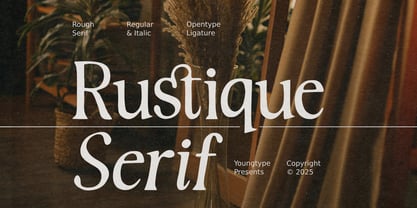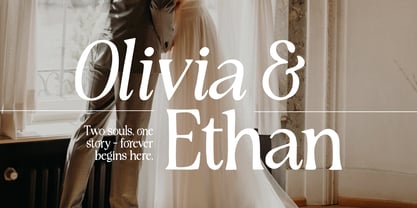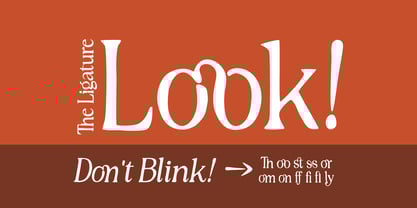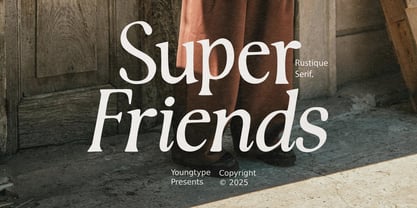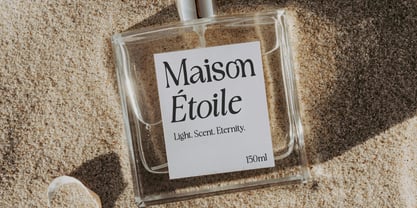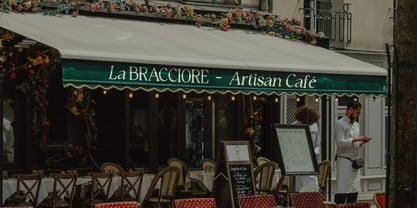
Rustique Serif
by Youngtype
The Rustique Serif Font Family was designed by Naufal Paramata and published by Youngtype. Rustique Serif contains 2 styles and family package options.
Rustique Serif is a refined serif typeface that combines rustic charm with a touch of modern sophistication. Its slightly rough edges and elegant curves create a handcrafted yet professional look, while the availability of regular, italic, and unique ligatures enhances its versatility. This font is well-suited for branding, editorial layouts, packaging, and creative projects, offering a warm and timeless aesthetic that balances classic tradition with contemporary style.
Contains full set :
• Uppercase
• Lowercase
• Ligatures
• Alternates
• Punctuation
• Number
• Multilingual support.